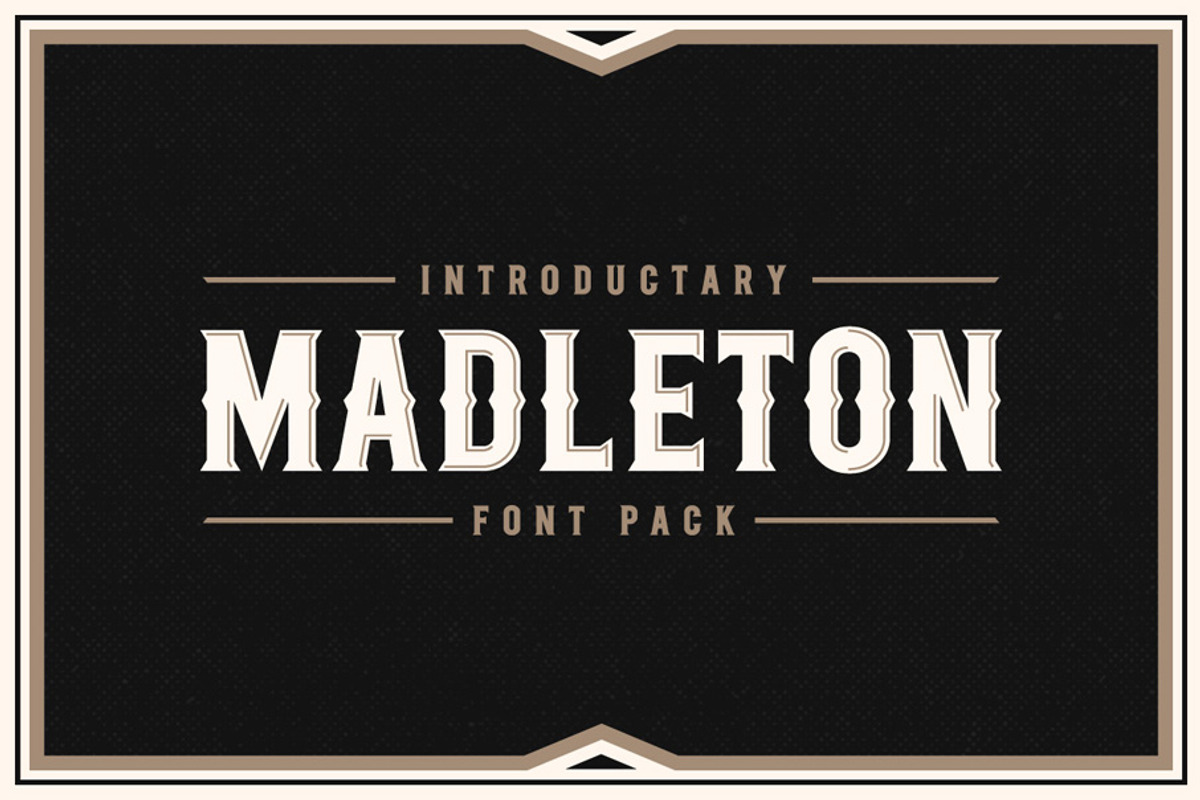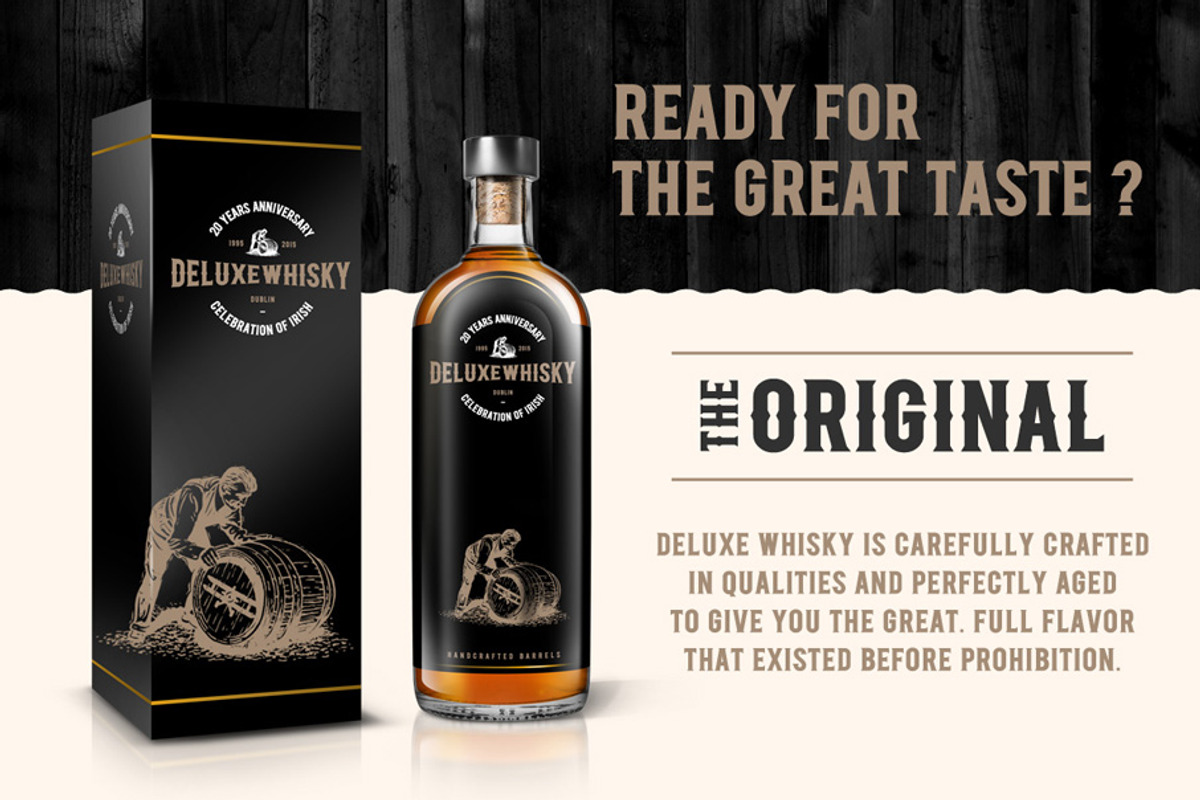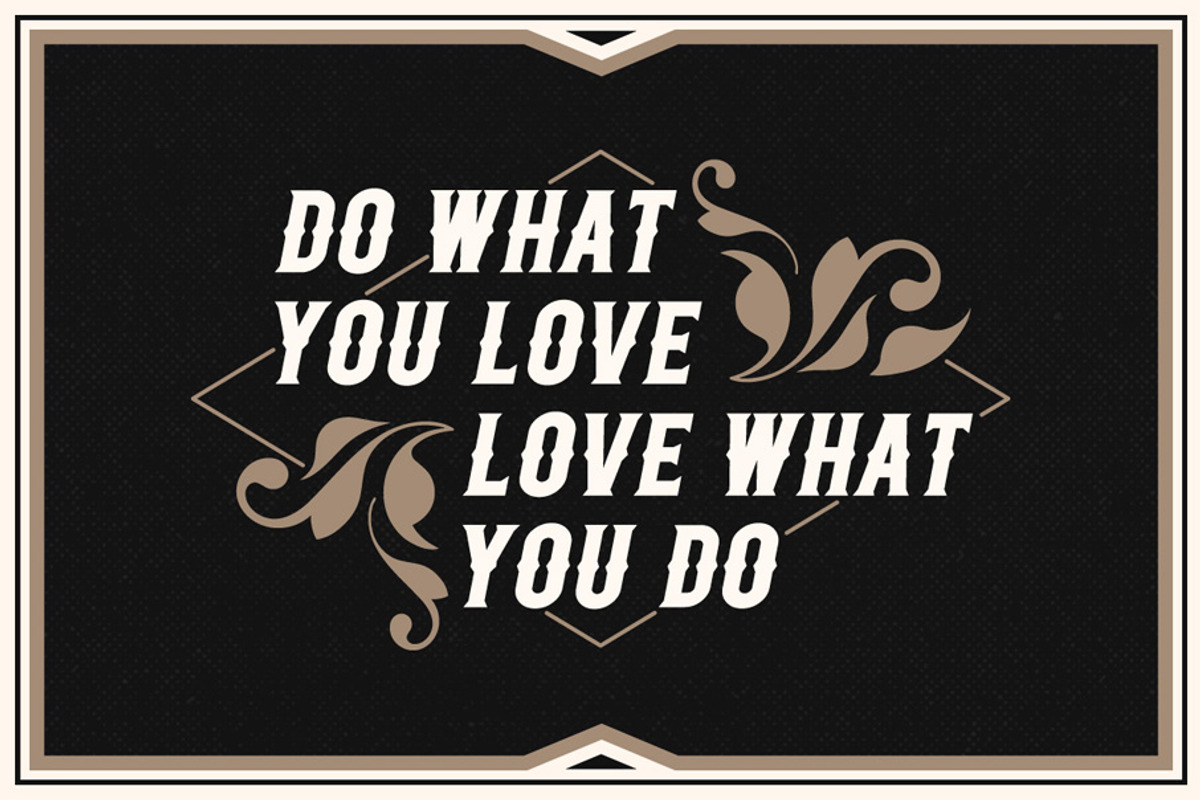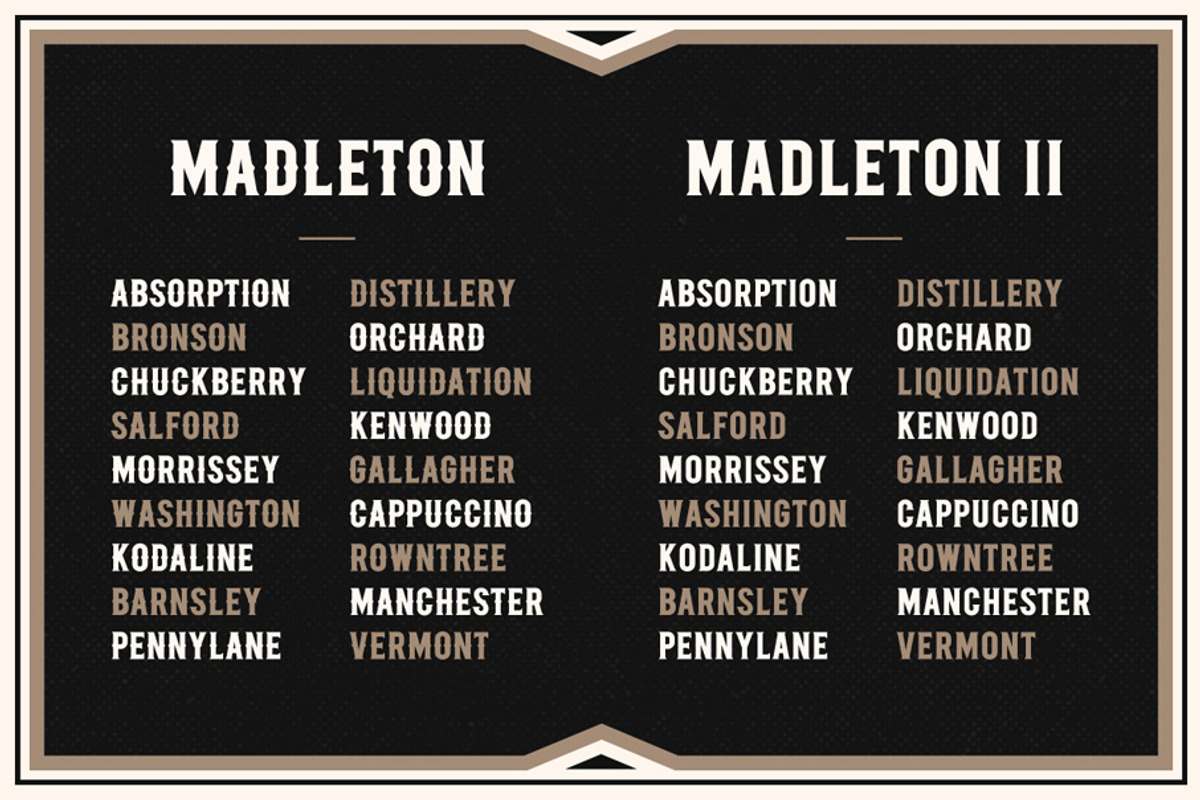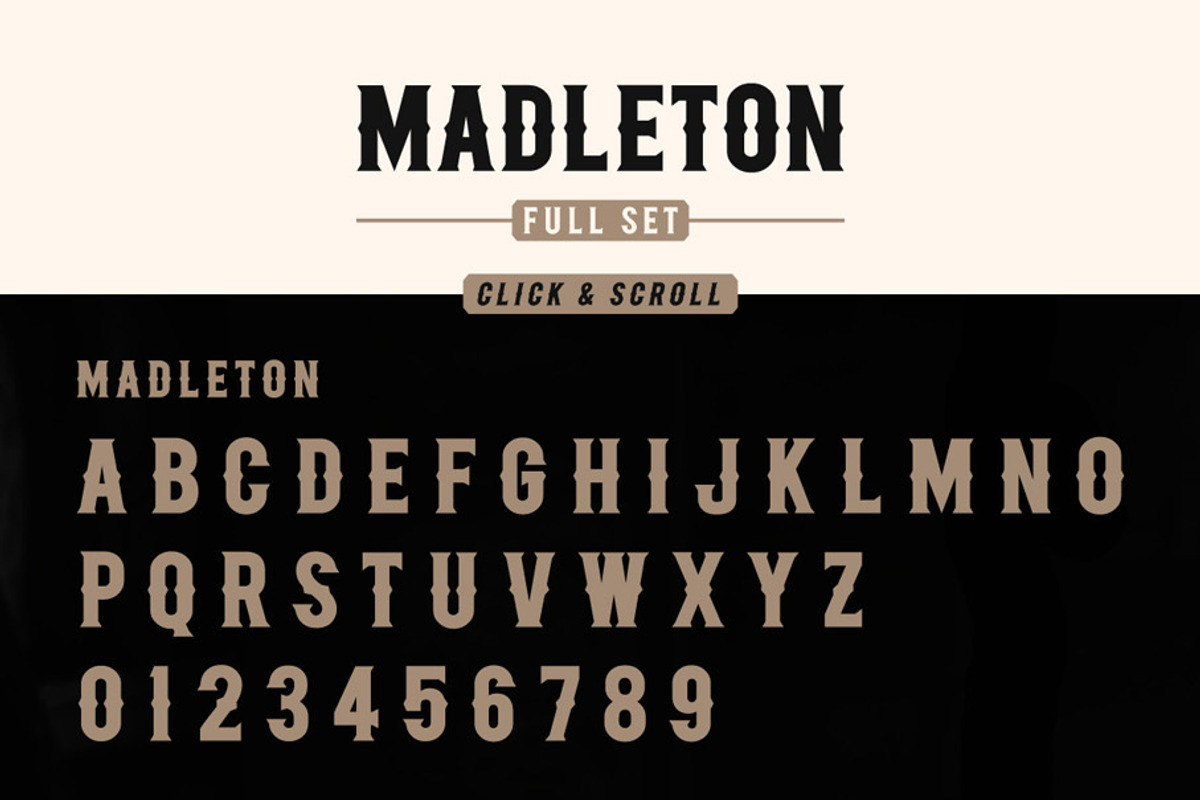
Madleton Font Pack
Madleton Font Pack by Rich Graphic is a font selected for branding, posters, packaging, typography.
Why Madleton Font Pack is worth a look
Madleton Font Pack by Rich Graphic fits naturally into Branding, posters, packaging, typography.